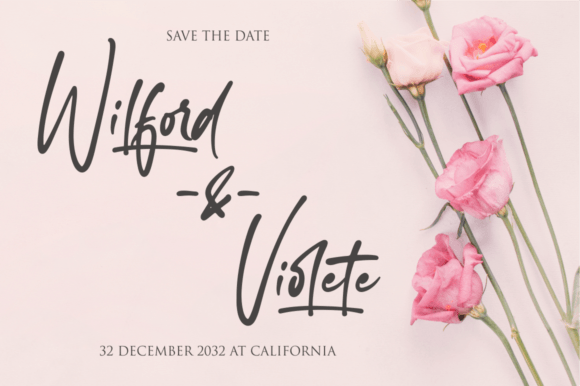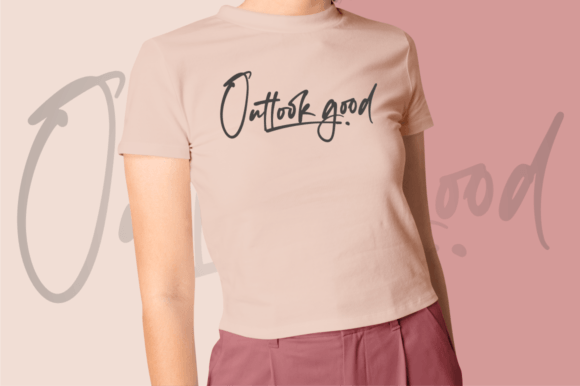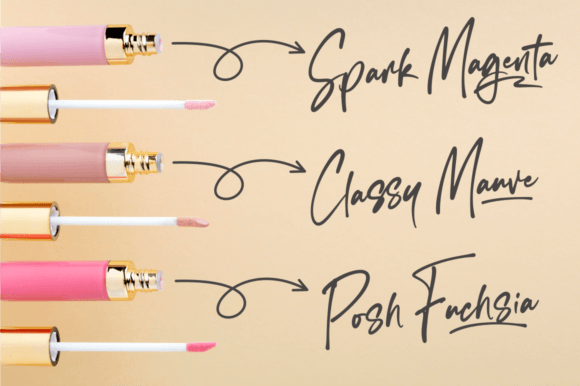
Maradona Junior Font
About the Maradona Junior Font
Elevate your designs with Maradona Junior Font, a font that combines sophistication with readability. Maradona Junior is a playful handwritten font with a messy style. Its casual and fun vibe adds personality to any project. Perfect for adding a touch of spontaneity to your designs, Maradona Junior is great for posters, invitations, and anything else that needs a touch of whimsy.
Maradona Junior’s playful energy makes it ideal for projects requiring a youthful, approachable feel. Consider it for branding for children’s products, event posters targeting a young demographic, or packaging for quirky goods. However, its informal nature makes it unsuitable for body text or applications demanding high readability, such as websites or user interfaces.
Pairing Maradona Junior effectively requires a contrast in style. A clean sans-serif like Open Sans or a geometric sans-serif like Futura would create a balanced composition, grounding the playful script. For a more sophisticated look, consider a refined serif like Garamond or a more modern serif such as Lato.
The font’s overall personality is undeniably fun and slightly mischievous, yet approachable. It’s best suited for brands or projects that wish to convey a sense of youthful energy and carefree spirit.
Maradona Junior Font Usage Examples
Maradona Junior Font Example